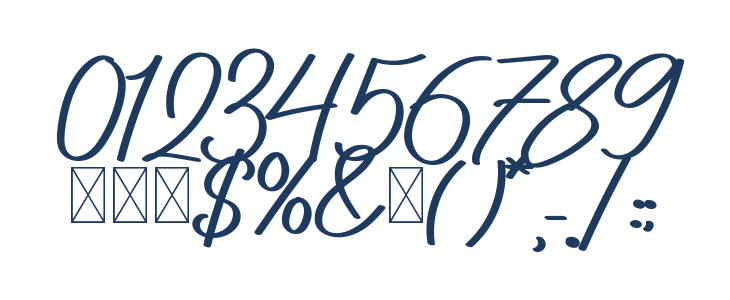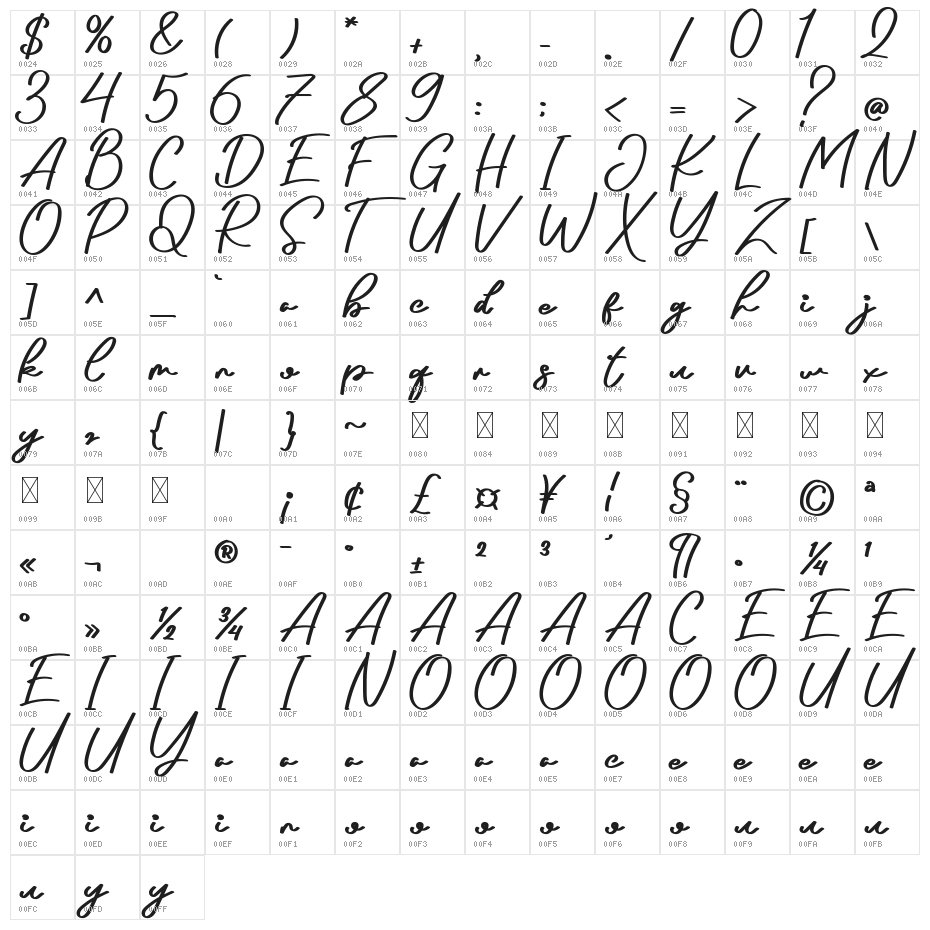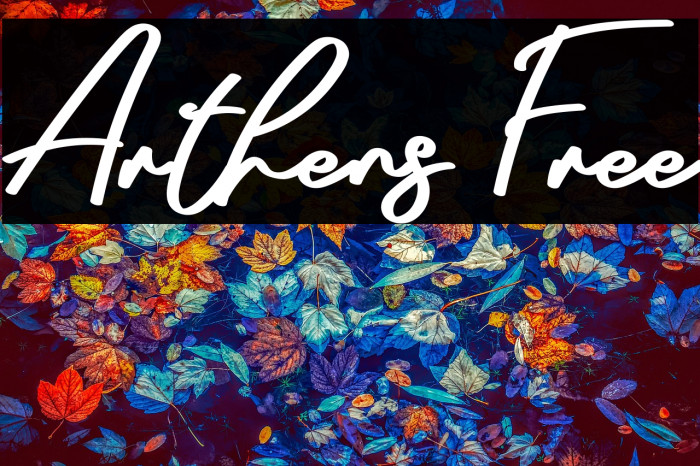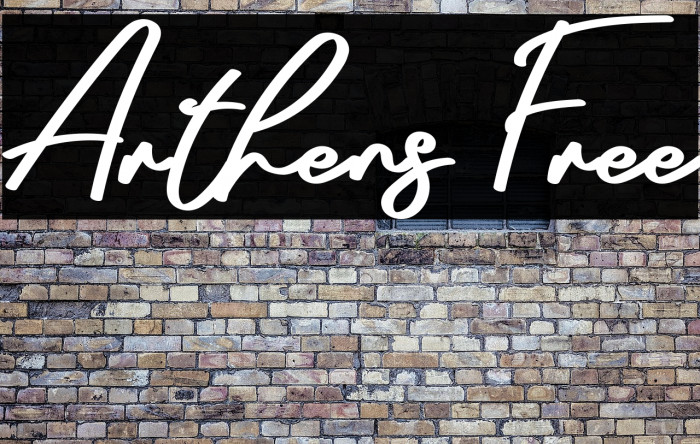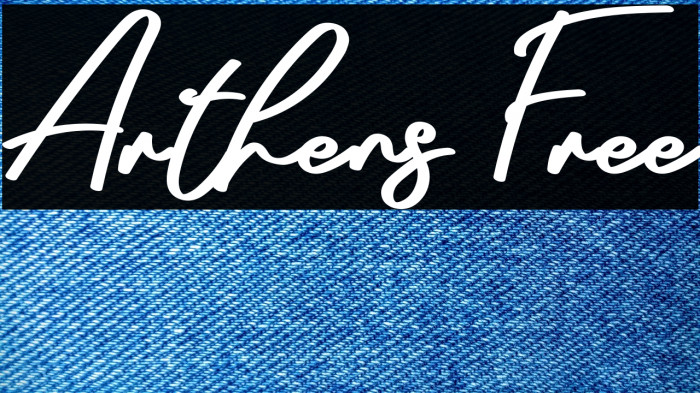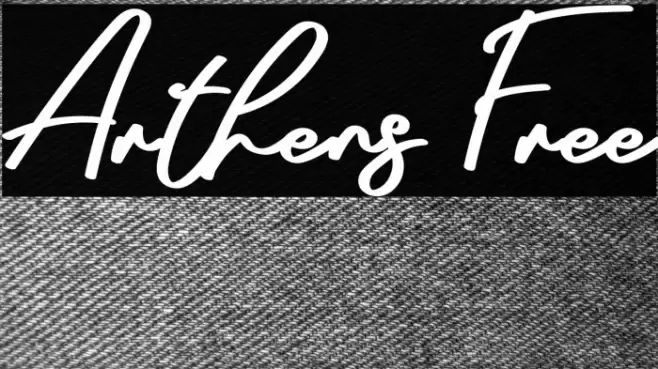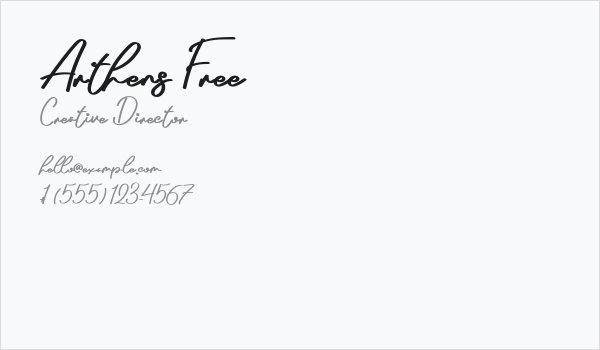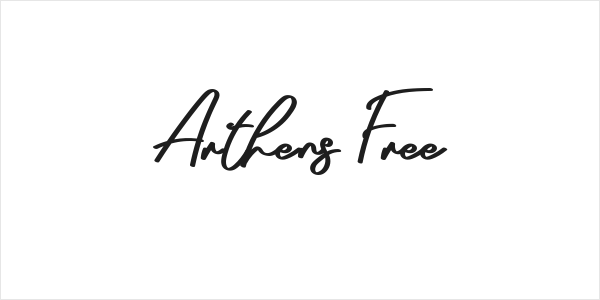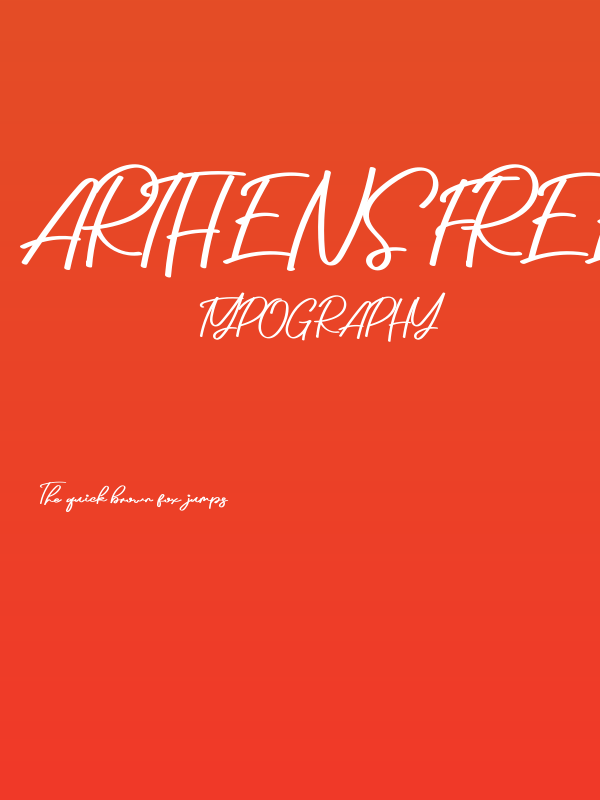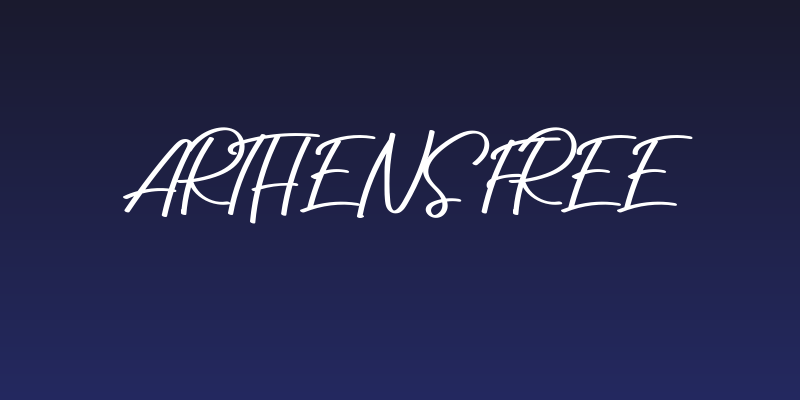
Arthens Free Font
Arthens Free Description
This font exudes a dynamic and flowing style, characterized by its cursive script that mimics elegant handwriting. The uppercase letters are tall and slender, with a slight slant that adds a sense of motion and grace. The lowercase letters are more compact, maintaining the fluidity with smooth, connected strokes. Numbers and special characters follow the same cursive style, ensuring consistency across all elements. The overall appearance is both sophisticated and approachable, making it suitable for a variety of creative applications. The strokes are moderately thick, providing a balanced contrast that enhances readability while maintaining the decorative essence of the script.